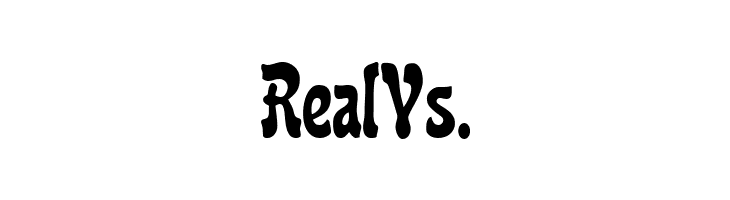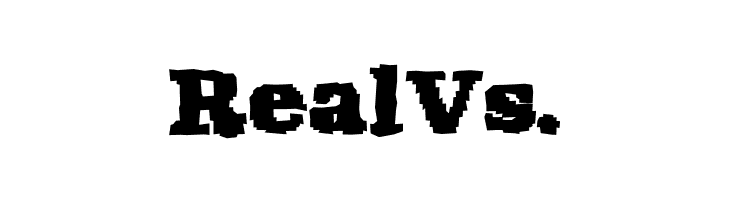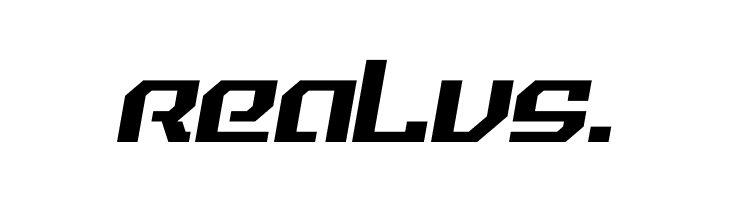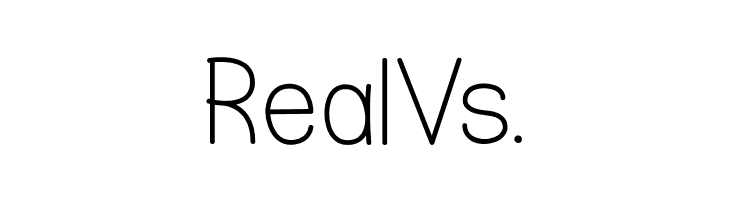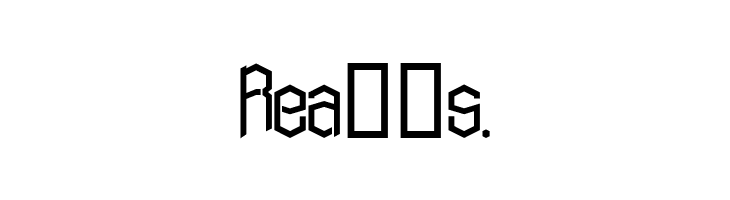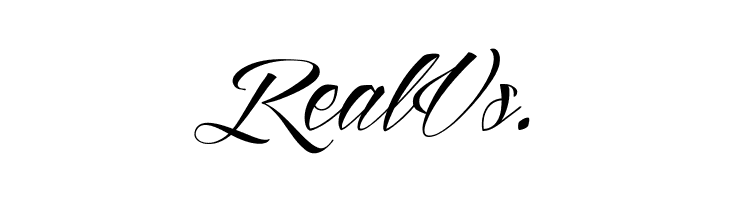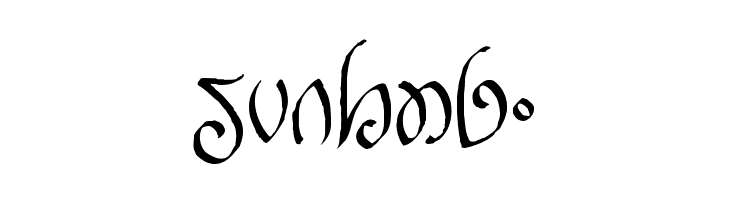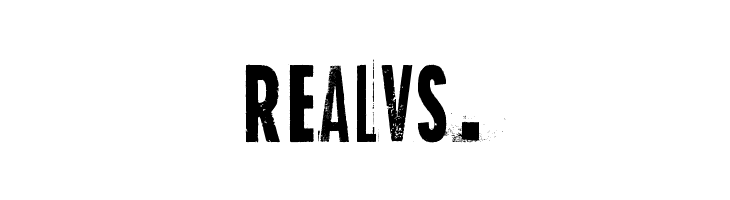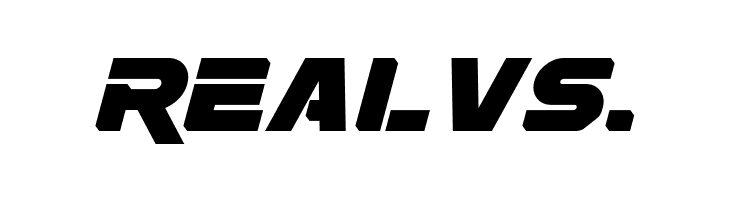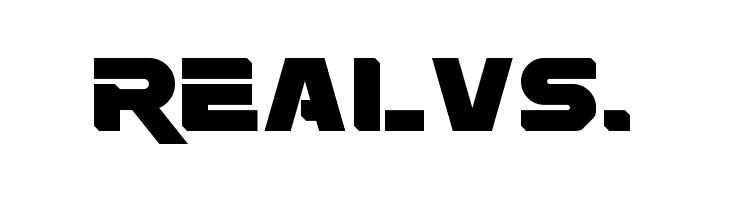
A bold, spiky font with a rugged, thorn-like texture.
A jagged, distressed font ideal for horror themes.
A modern, geometric sans-serif font with consistent stroke width and rounded lowercase letters.
An intricate and decorative font with a blend of sharp angles and smooth curves.
A bold, decorative font with intricate curves and sharp angles, ideal for artistic designs.
A bold, italicized font with high contrast and a modern, decorative style.
A decorative italic font with sharp, angular strokes and a flowing, cursive-like style.
A bold, distressed font with jagged edges and a chaotic, hand-drawn style.
A bold, expressive font with a hand-drawn, graffiti-inspired style.
A bold, gothic-style font with intricate details and dramatic flair.
A bold, decorative font with gothic and rebellious elements.
A bold, decorative font with blackletter influences and star embellishments.
A bold, geometric font with strong, angular lines and a futuristic style.
A bold, italic font with geometric shapes and high contrast, ideal for dynamic designs.
A bold, retro-style font with thick, rounded characters and a playful design.
A modern, rounded sans-serif font with smooth edges and balanced spacing.
A bold, geometric font with thick strokes and a strong presence.
A bold, italicized font with a dynamic and energetic style.
A bold, italic, and condensed font with a modern and dynamic style.
A bold, distressed font with a vintage, industrial style.
A bold, distressed font with a vintage, grunge aesthetic.
A bold, brushstroke-style font with sharp, jagged edges and a graffiti-like aesthetic.
A bold, slanted font with high contrast and a modern, dynamic style.
A bold, rugged font with a distressed, vintage style.
A bold, distressed font with a rugged, vintage style.
An elegant, flowing script with intricate, decorative calligraphy.
A bold, decorative font with a calligraphic, fantasy-inspired style.